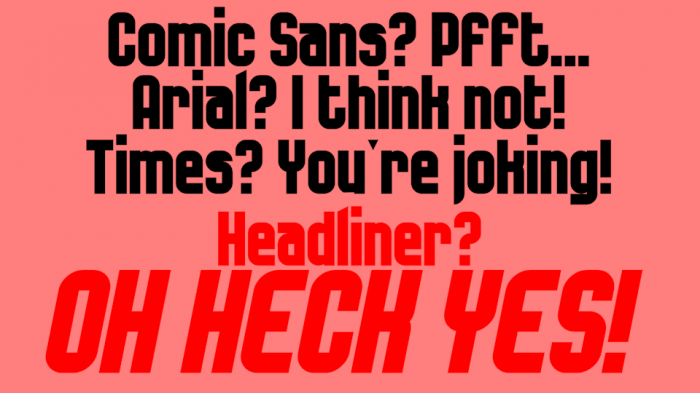
Headliner is a geometric sans-serif with a slight nod to the New Super Mario Bros. logo fonts. It's overall design reflects posters. The Comic Sans effect (using a font in a place other where it's supposed to be used) has been eradicated as this font is multi-use.
I plan on making a light weight and extended version